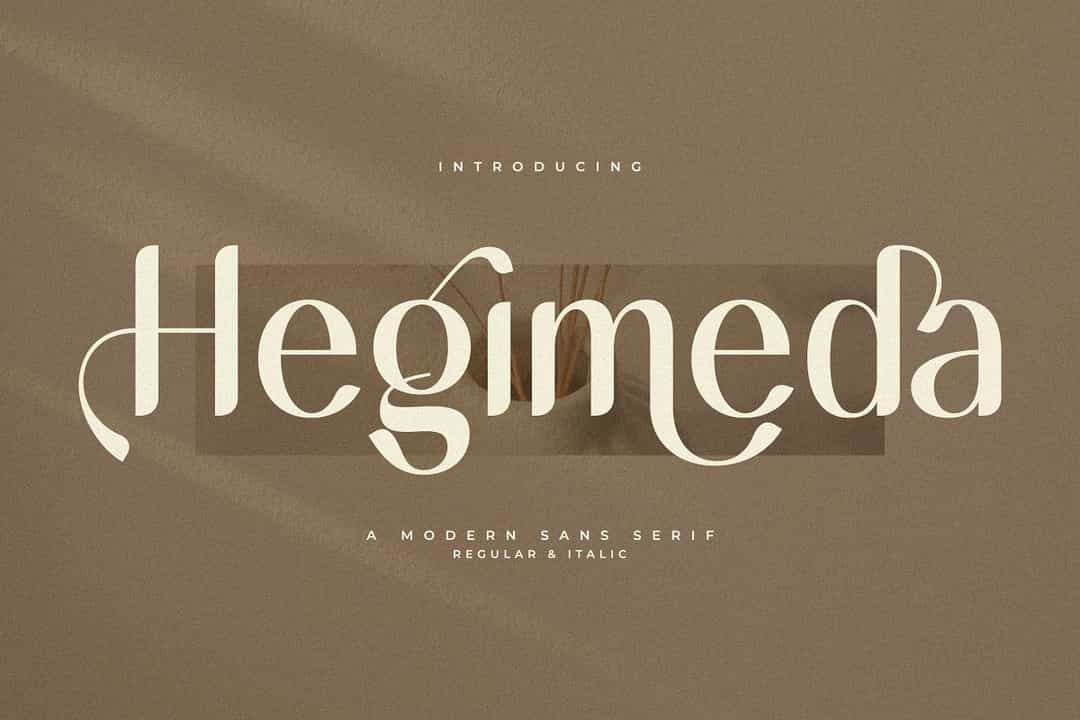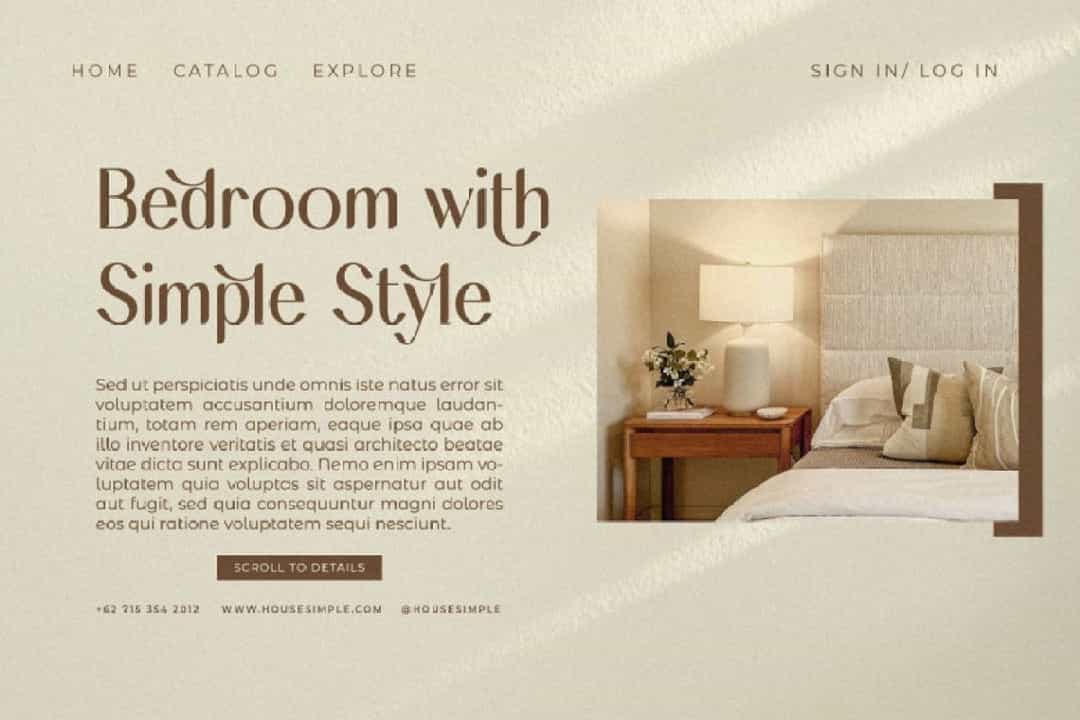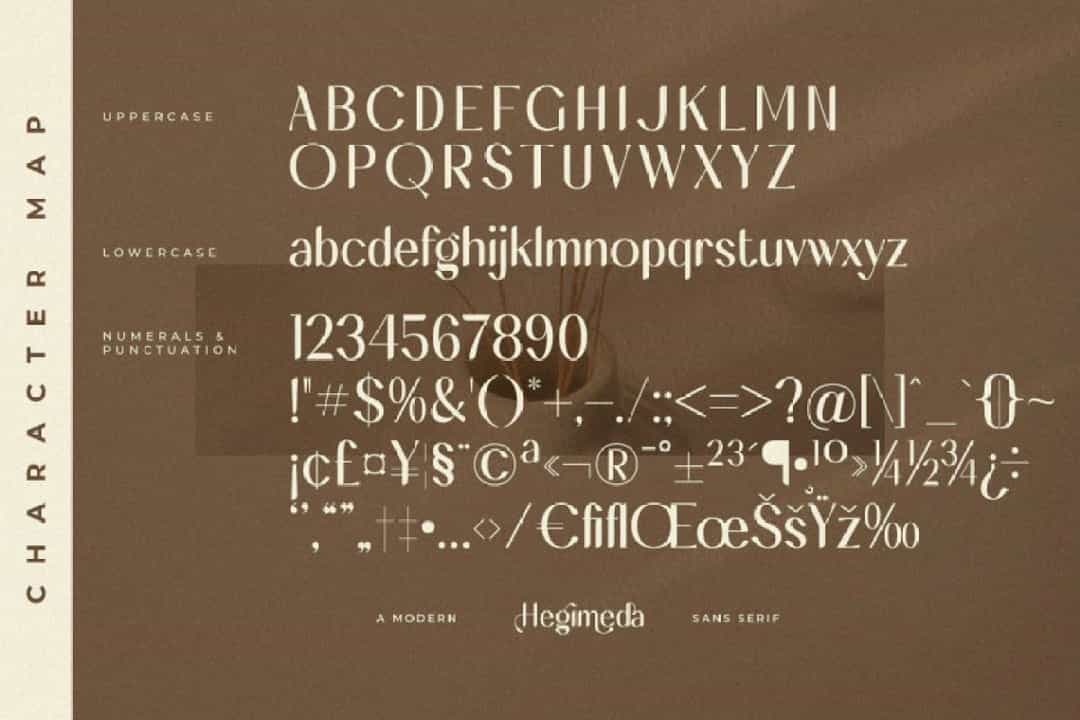
Hegimeda is an elegant and contemporary sans serif font with a distinct appearance, ideal for creating classy logos, fashion brand apparel logos, letters and quotes for magazines or publications – as well as creating beautiful quotes! This typeface can create beautiful logos.